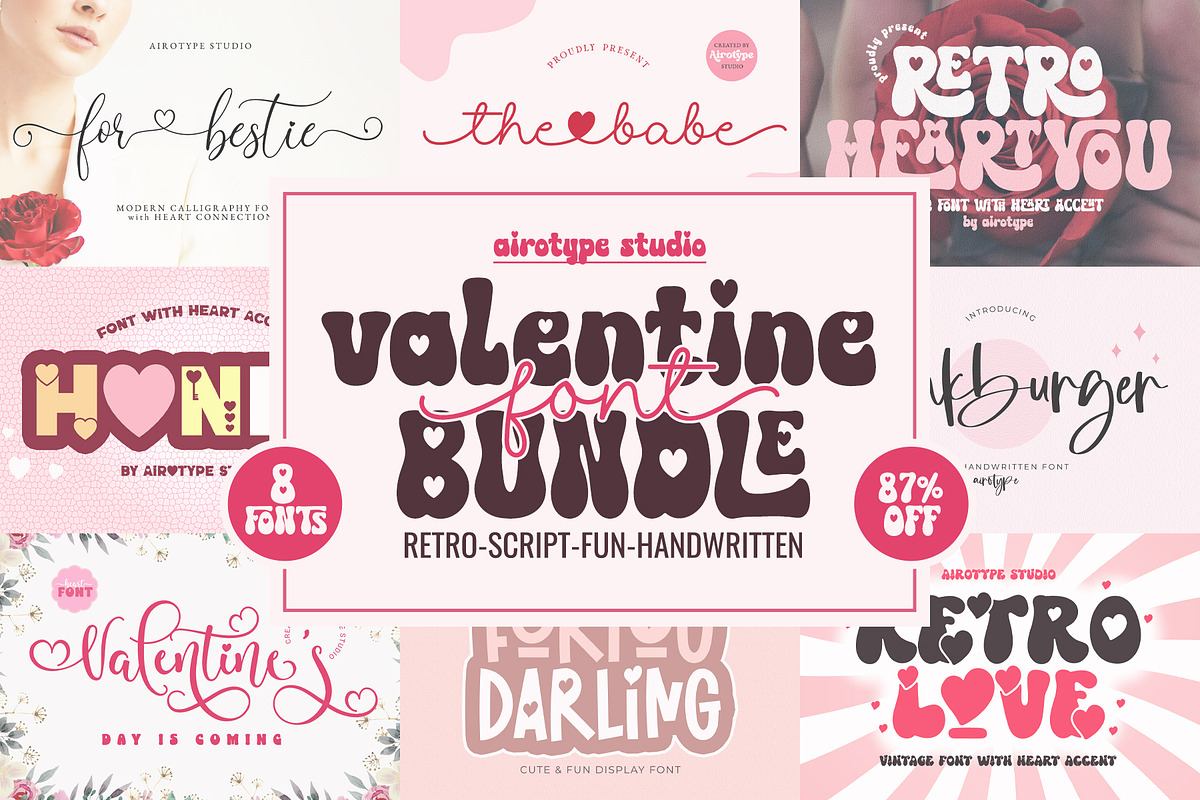
Heart Font Bundle | 8 Love Fonts Free Download is a romantic and versatile collection of typefaces designed to bring love and charm to every design. Featuring 8 beautifully crafted fonts—ranging from elegant scripts to playful handwritten styles—this bundle is perfect for Valentine’s Day cards, wedding invitations, couple branding, love quotes, and heartfelt social media graphics.
Each font in the Heart Font Bundle | 8 Love Fonts Free Download is designed with affection in mind, often featuring heart-shaped swashes, flourishes, or smooth curves that add emotional warmth to your designs. Whether you're creating for romantic occasions or cute lifestyle products, this bundle gives you a full toolkit of love-themed fonts to choose from.